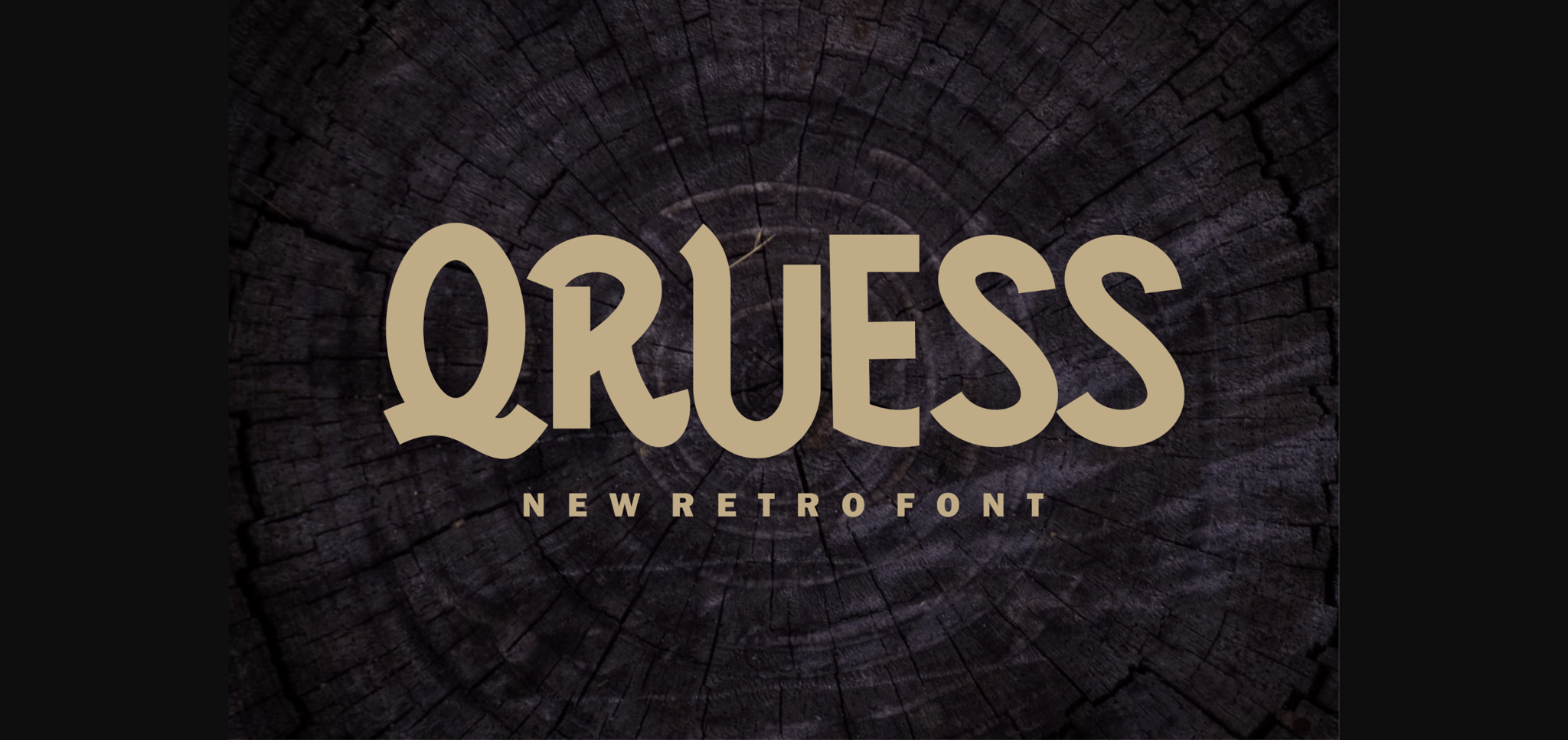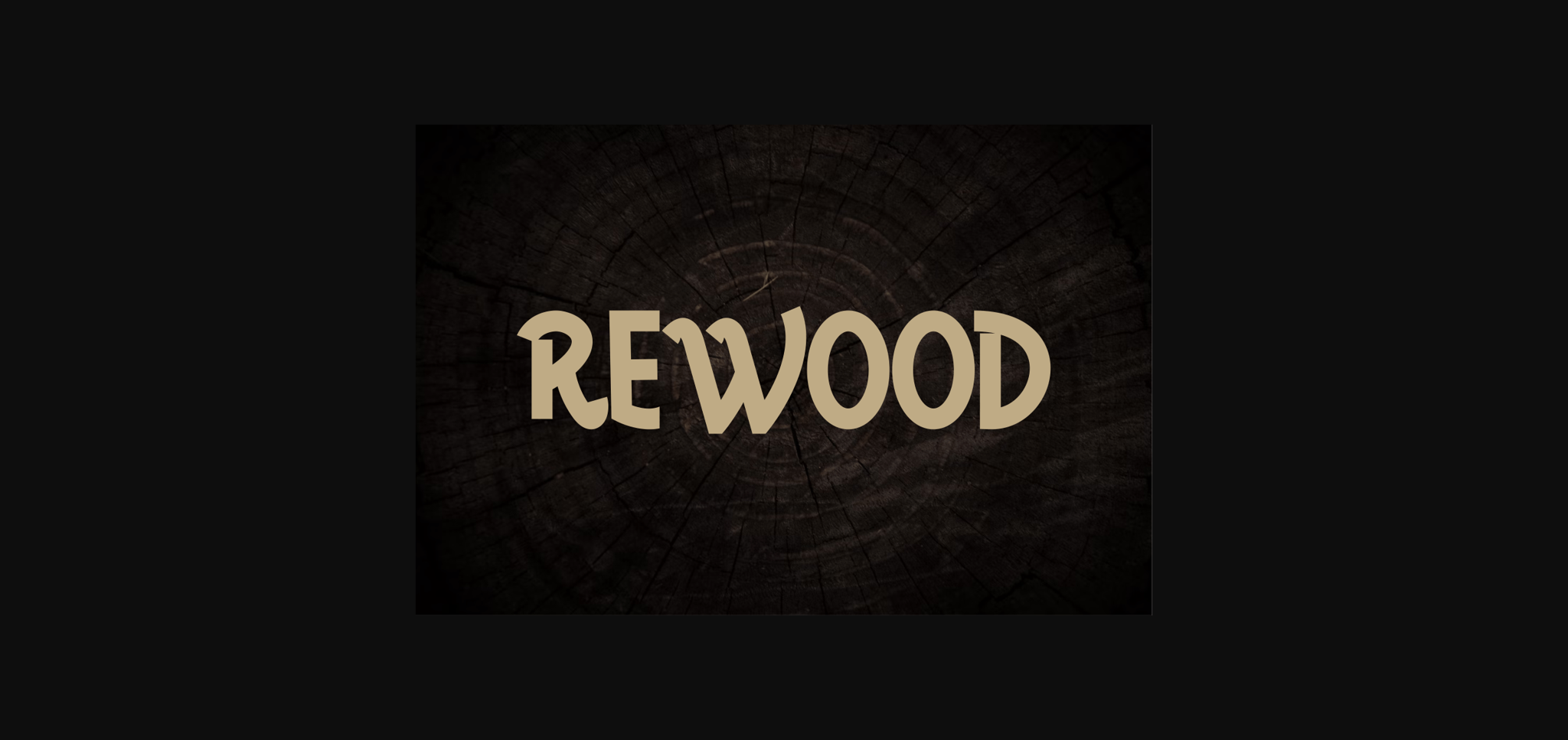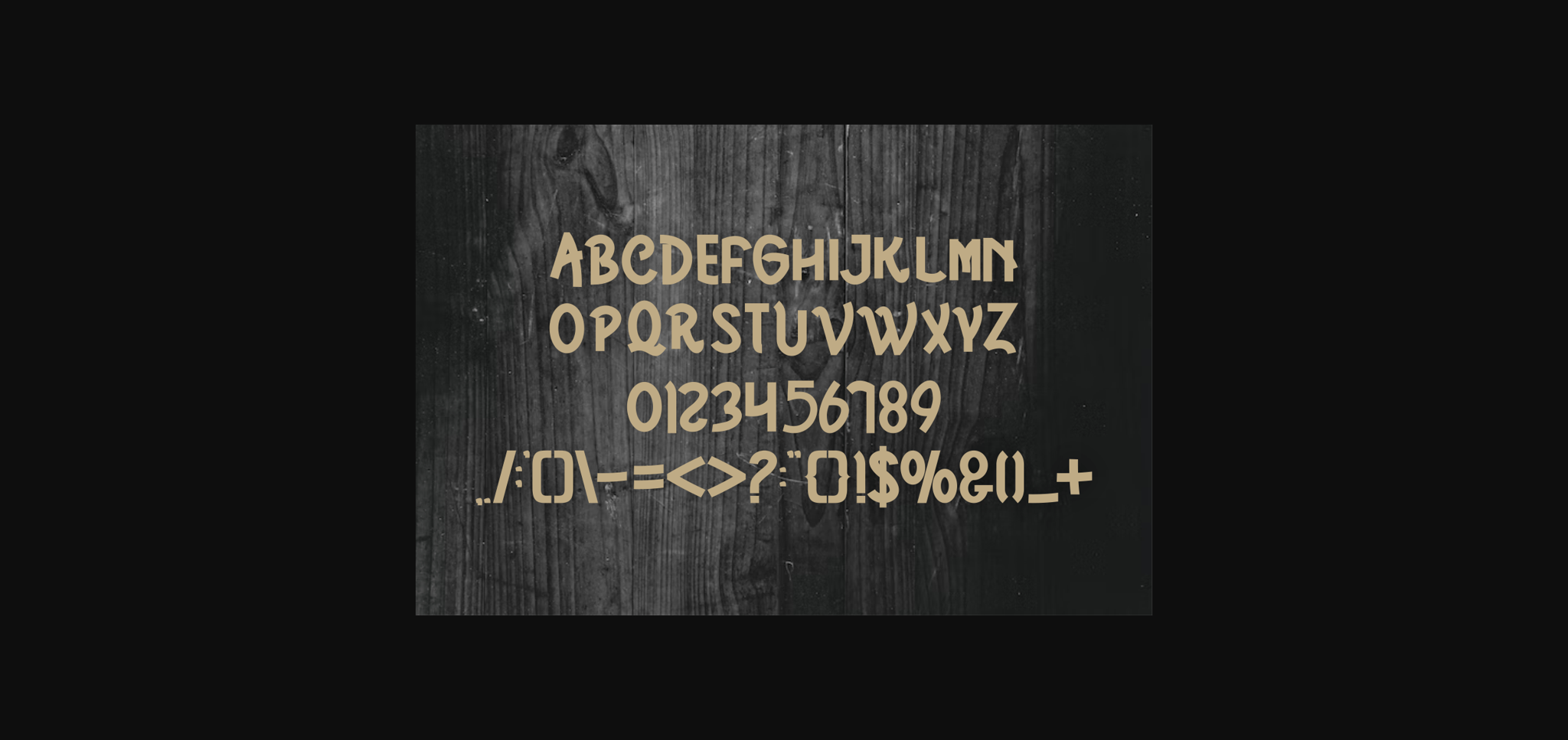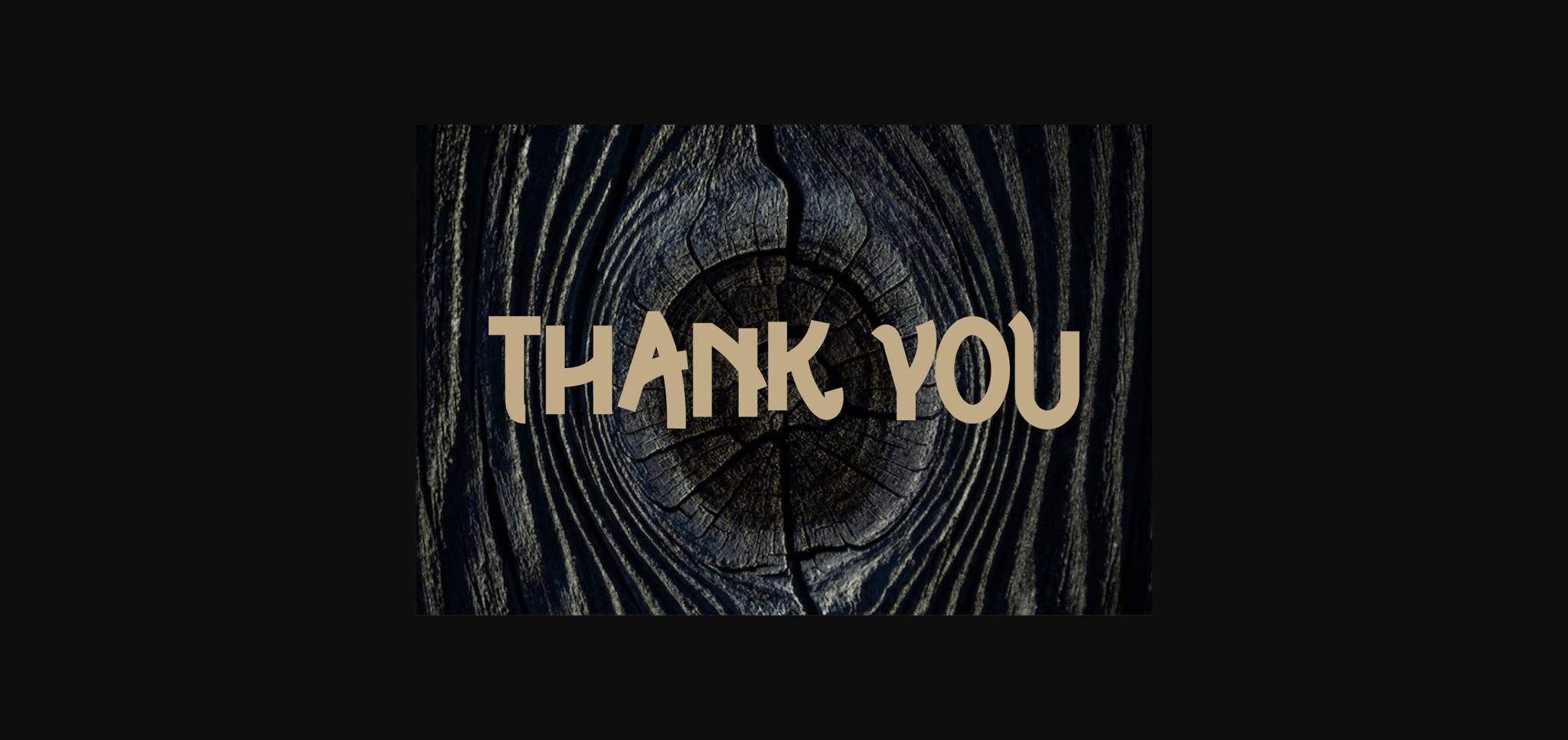
About Qruess Font
Qruess is a modern sans serif font that feels beautiful classy, elegant, and unique. This font is perfectly suited for a wide variety of projects, such as signature, stationery, logo, wedding, typography quotes, magazine or book cover, website header, clothing, branding, packaging design, and more.